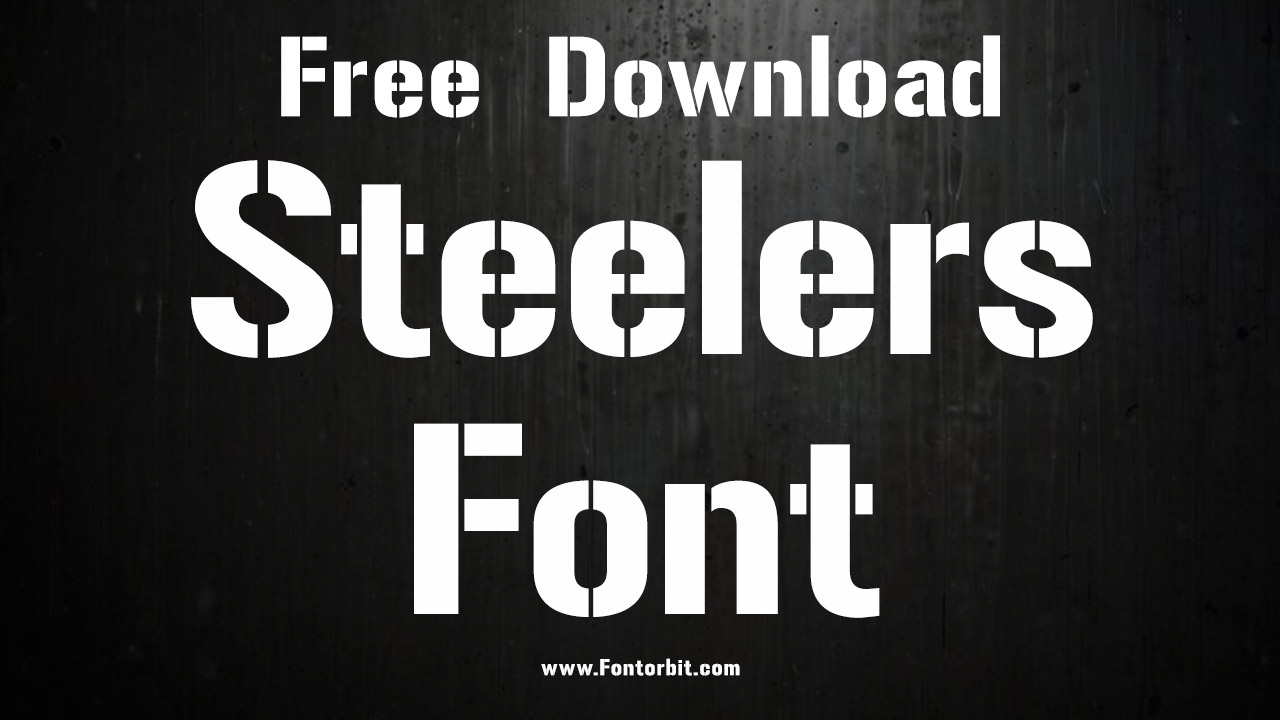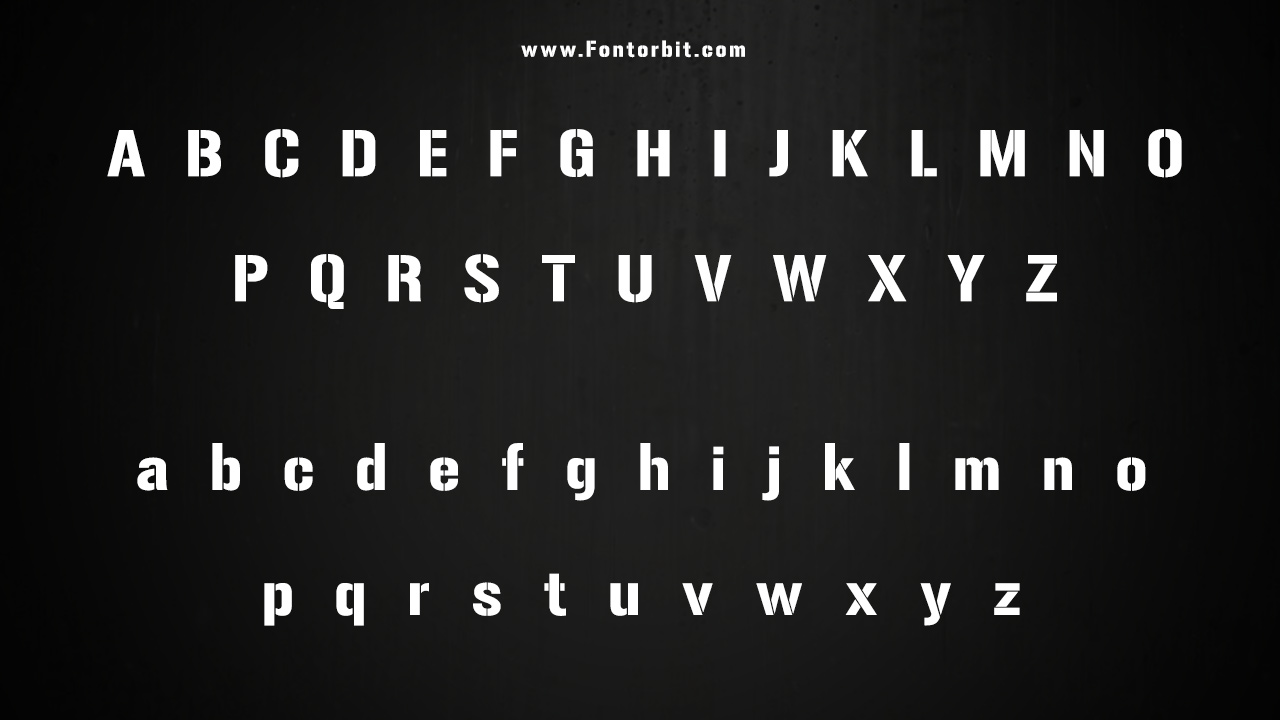
The Steelers Font, inspired by the Pittsburgh Steelers’ iconic logo, is a distinctive typeface designed to capture the bold and dynamic essence of the renowned American football team.
Created by Ray Larabie for Typodermic Fonts, this font is perfect for adding a sporty and energetic touch to your designs. The actual font used in the Steeler logo is the Gunplay font.
The Steelers Font Family
- Gunplay Regular
- Gunplay 3d
This decorative display typeface shines in various sizes, making it ideal for impactful headlines, sports-related branding, and vibrant promotional materials. Its bold design elements and unique style create a strong visual presence, enhancing the overall appeal with a touch of athletic flair.
- Sports Branding
- Team Logos
- Event Posters
- Merchandise
- Sports Magazines
- Promotional Materials
Steelers Font excels in creating powerful and engaging display designs. Its sporty and distinctive style makes it suitable for team-related graphics, event promotions, and any context where a bold, eye-catching font is desired. It works well in contexts that benefit from a dynamic and energetic touch.
Steelers Font’s bold and dynamic style makes it an excellent choice for sports-related and promotional applications. Its unique design adds a strong and memorable touch to a variety of projects, ensuring it captures attention and conveys a sense of energy and excitement.
1.What Is The Steelers Font?
Steelers Font is a typeface designed by Ray Larabie of Typodermic Fonts, inspired by the Pittsburgh Steelers’ logo. It features a bold and dynamic design ideal for sports and promotional applications.
2.How To Choose The Right Size For Steelers Font?
Steelers Font works well in various sizes, but it particularly excels in larger sizes where its bold design can make a strong impact, making it ideal for headlines, logos, and prominent text.
3.What Are The Key Features Of The Steelers Font?
Steelers Font features a bold and athletic design with distinctive letterforms that enhance its visual impact, making it perfect for sports branding and promotional materials.
4.How To Use The Steelers Font In Design?
Use Steelers Font to create striking headlines, team logos, and promotional materials that require a strong and energetic typographic presence.
5.What Are The International Language Support Options For The Steelers Font?
Steelers Font supports Latin-based languages, making it suitable for English text and other languages using the Latin alphabet.